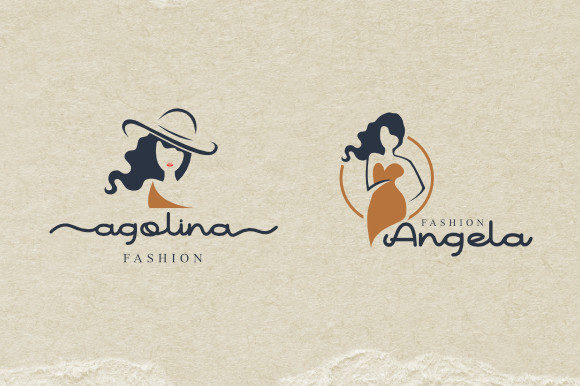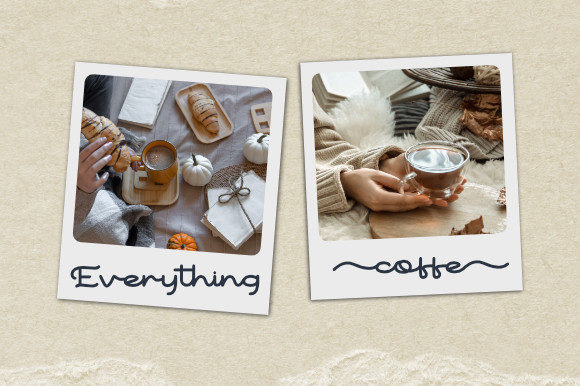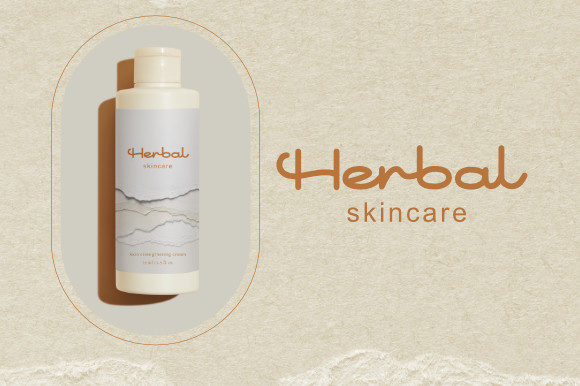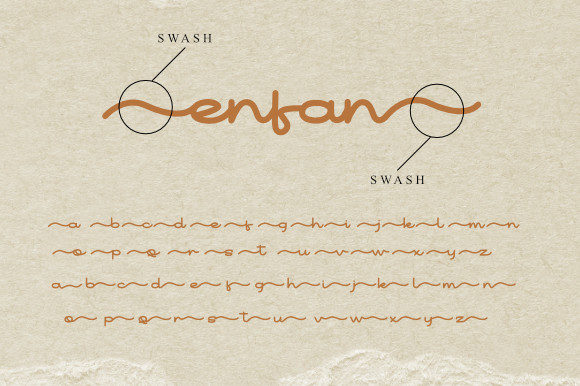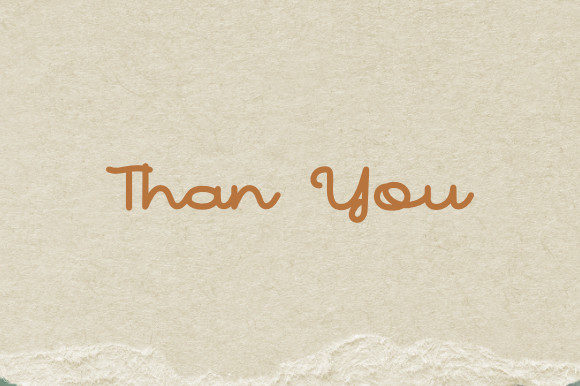
Introducing Enfan Font: Elevate Your Designs with Luxury and Elegance
In the world of typography, fonts play a crucial role in conveying the tone and aesthetic of a design project. For designers and crafters seeking to add a touch of luxury and sophistication to their work, the Enfan Font is an exceptional choice. This stunning script font is designed to bring a level of elegance and refinement to any project, making it perfect for those who aim to create visually striking and high-end designs.
Characteristics of Enfan Font
Enfan Font is characterized by its thin lettering and graceful script style. Each letter is meticulously crafted to exude a sense of luxury and poise, making it an ideal choice for designers who want to add a touch of sophistication to their work. The font’s sleek and refined appearance ensures that it can be used across various design projects, from branding and advertising to packaging and digital media.
One of the standout features of Enfan Font is its PUA (Private Use Area) encoding. This means that users can easily access a wide range of glyphs and ligatures, allowing for greater creative flexibility and control. With PUA encoding, designers can effortlessly incorporate special characters and swashes into their designs, taking their work to the next level.
Enfan Font offers numerous benefits for designers and crafters, including:
- Elegant and Luxurious Aesthetic: Enfan Font’s sophisticated design ensures that any project stands out with a touch of luxury and refinement.
- Ease of Use: The font’s PUA encoding makes it easy to access and use a wide range of glyphs and ligatures, streamlining the design process.
- Versatility: Enfan Font can be used across various design projects, from digital media to print materials, making it a versatile addition to any designer’s toolkit.
- High-Quality Design: The font’s high-quality design ensures that it remains legible and visually appealing, even at small sizes.
Use Cases for Enfan Font
Enfan Font’s versatility and elegance make it suitable for a wide range of design projects, including:
- Branding and Logo Design: Create stunning logos and brand identities that exude luxury and sophistication.
- Advertising and Marketing Materials: Elevate your advertising and marketing materials with a touch of elegance and refinement.
- Packaging Design: Add a level of luxury to your packaging designs, making your products stand out on store shelves.
- Digital Media: Use Enfan Font to create visually striking digital media, including social media graphics, website headers, and more.
In conclusion, Enfan Font is an exceptional choice for designers and crafters seeking to add a touch of luxury and elegance to their work. With its thin lettering, graceful script style, and PUA encoding, this font offers a level of sophistication and versatility that is hard to match. Whether you’re working on branding, advertising, packaging, or digital media, Enfan Font is sure to elevate your designs and help you achieve your creative vision.